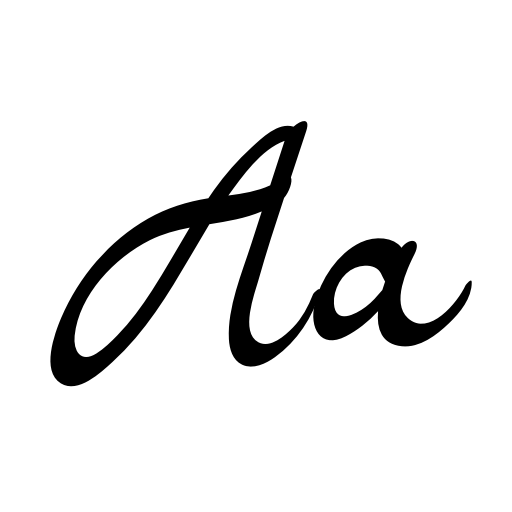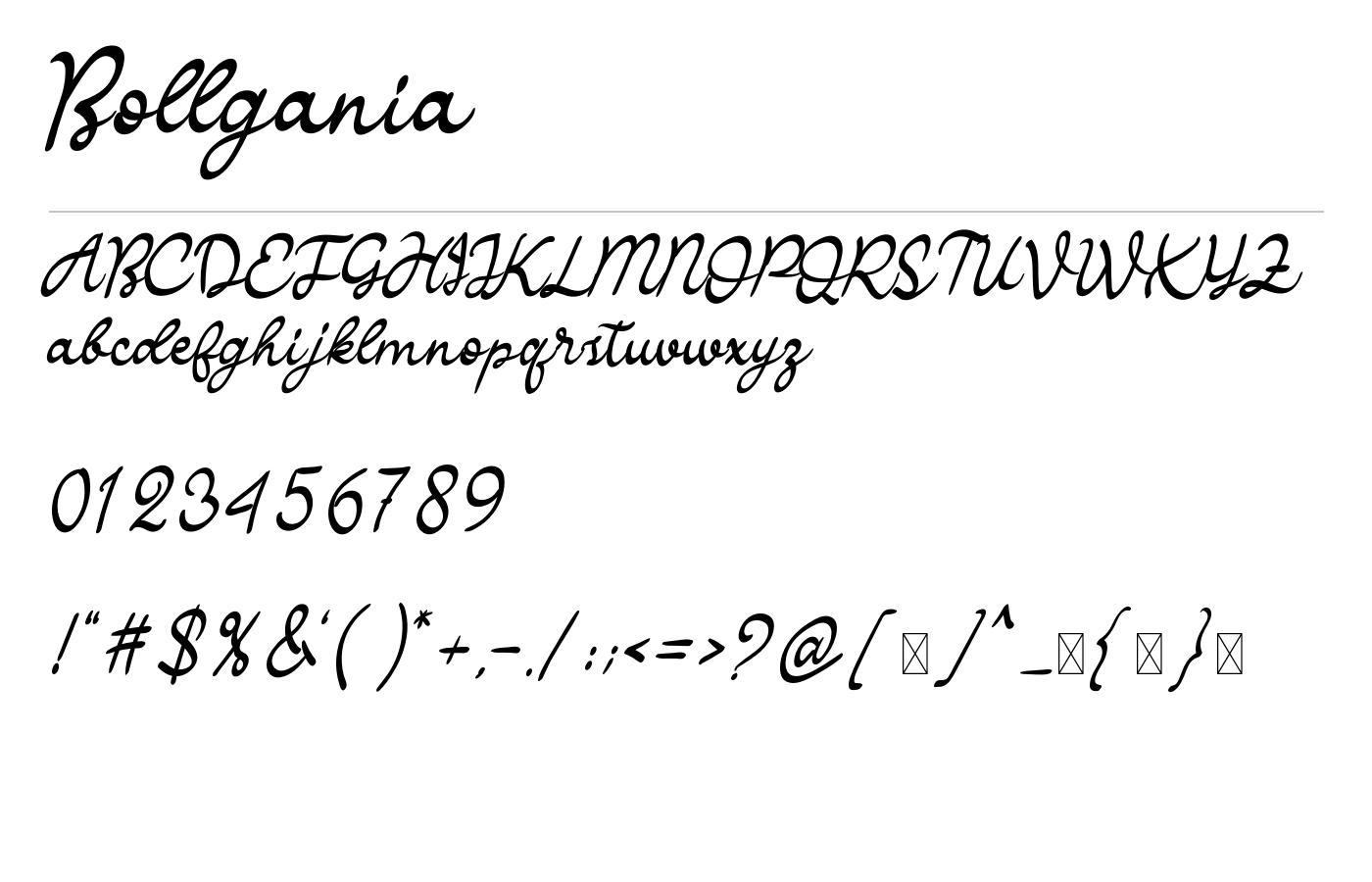
Bollgania is a graceful script font with smooth, flowing strokes and a casual yet elegant feel. Its moderate weight and consistent stroke give it readability while maintaining a handwritten charm, making it ideal for invitations, branding, and creative projects where a personal touch is desired. This font works beautifully in settings that call for warmth and sophistication without formality.
Bollgania Font
About Bollgania Font